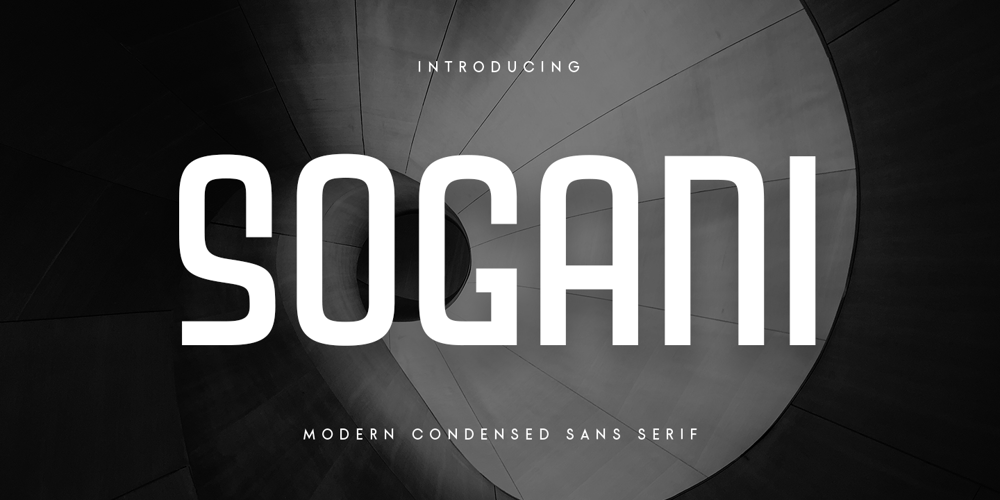
Sogani Font Family was designed by Zamroni Hamzah and published by Sensatype Studio. Sogani contains 1 styles and family package options. Sogani is a Modern Condensed Sans Serif font are prepared special for heading, title, and typography needsA new San Serif Font that we created special for Headline, Title and more stand out typography needs. It’s so perfect to add your style and headline overview. And specially for Sogani font, we crafted for unique style and modern feels so enjoy to create any project that will show your main idea out.Sogani Modern Condensed Sans Serif Font ready with: Any options to get creative variations 3 files format already Preview as a inspirations that you can do with Sogani font Ready with All characters Wish you enjoy our font. ๐